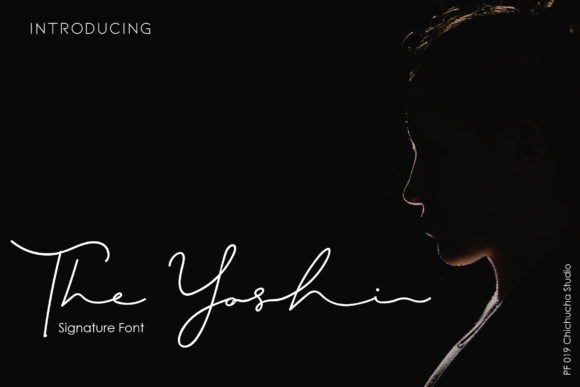
Prepare to be captivated by The Yoshi Font, an enchanting signature font designed to transform your creative projects into masterpieces of elegance, class, and modernity. Its enchanting strokes dance across the page, leaving a trail of sophistication that is sure to impress.
Born from the creative mind of Chichucha, The Yoshi Font is not just a collection of letters; it's an expression of art. Its script style is meticulously crafted to evoke a sense of timeless beauty, making it a perfect choice for branding, wedding invitations, quotes, posters, and social media graphics.
With The Yoshi Font, your words will leap off the screen, commanding attention and leaving an indelible mark on your audience. Its graceful curves and delicate swashes add a touch of whimsy and charm, while its consistent flow ensures readability without compromising on style.
Unleash your creativity and let The Yoshi Font guide you to new heights of design excellence. This font is more than just a tool; it's a gateway to a world of elegance, class, and modernity.